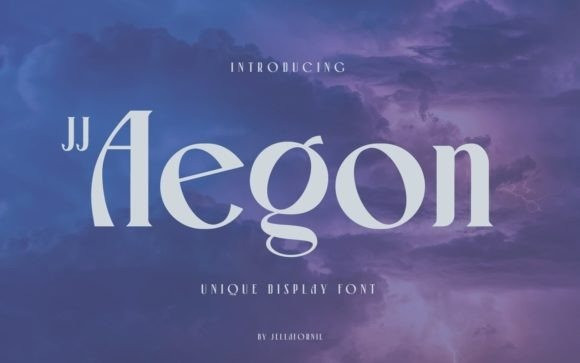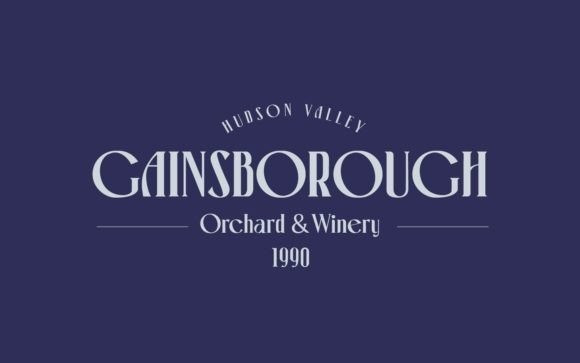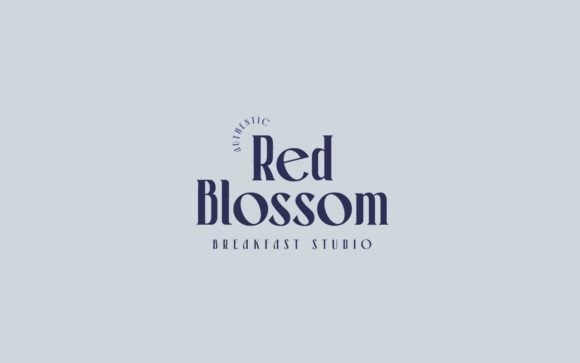
Jj Aegon Font
JJ Aegon is a display font with a vintage touch. It is tall yet maintains the round shapes of most rounded letters like O and G, creating a memorable unique look. Suitable for logos, labels, quotes, and any short texts that need a modern-old, heritage touch. It is poised, elegant, and mature. It guarantees to leave a strong impression on the audience.